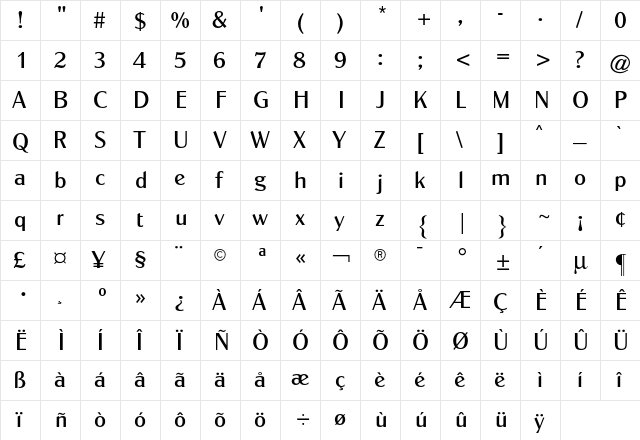
Globe Gothic CG Demi Regular
Design Context for Globe Gothic CG Demi Typeface
Globe Gothic CG Demi takes a clean, functional approach — its unadorned letterforms prioritise legibility and work reliably across screen and print environments.
Font Pairing: Works well alongside a characterful serif or display font that can carry the expressive load while Globe Gothic CG Demi handles the functional copy.
Pro Tip: Pair Globe Gothic CG Demi with a display or serif font for headlines — its neutral character makes it an excellent supporting player in complex typographic systems.